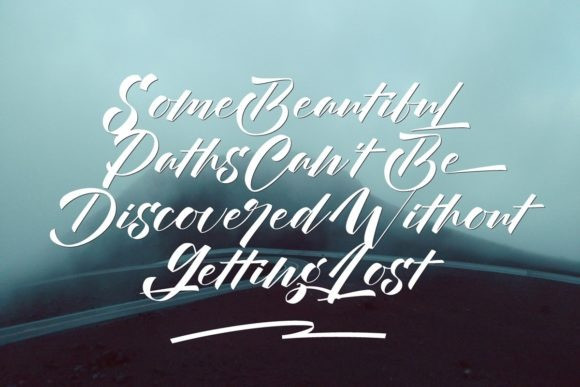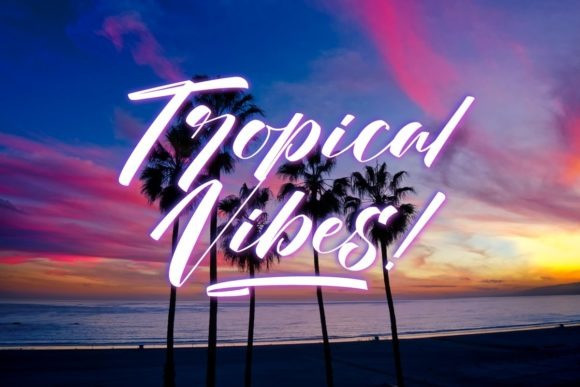
The Rosmarie Signature Script Font
The Rosmarie Signature is a thin and fashionable handwritten font. Expertly designed to make your creation look out of this world, this font has the potential to take your creative ideas far further.